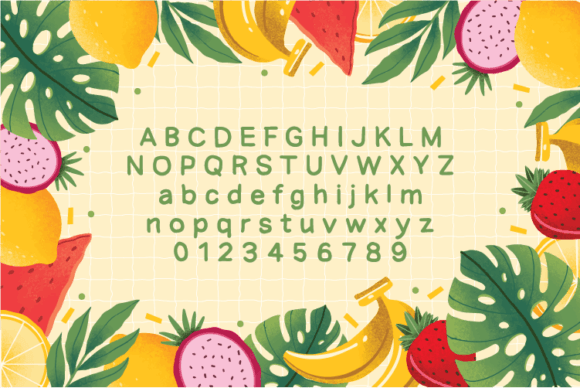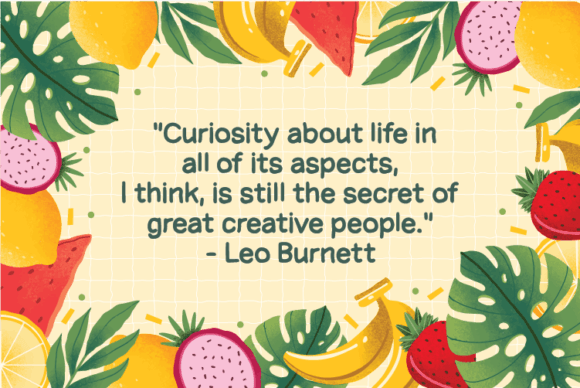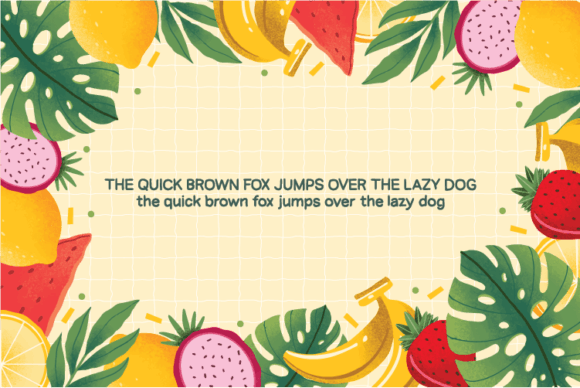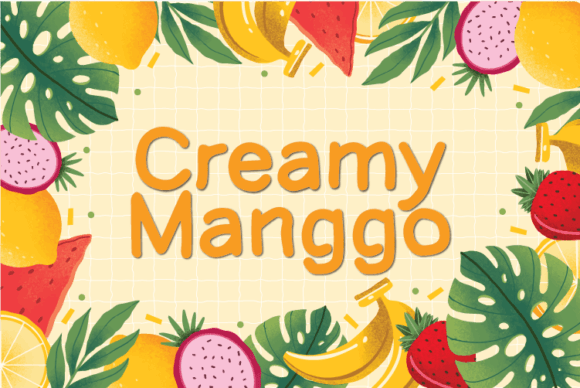
Creamy Manggo Font: A Unique and Natural Handwritten Style for Your Designs
In the world of typography, a good font can make all the difference in the success of a design project. For designers and crafters looking for a unique and natural handwritten style, Creamy Manggo Font is an excellent choice. This beautiful font is perfect for adding a personal touch to quotes, notes, tees, and any product design.
What Makes Creamy Manggo Font Special?
Creamy Manggo is a natural handwritten font that stands out from the rest due to its distinctive feature: not a single node in each character’s indentation has been changed. This means that the font retains a genuine, hand-written feel that is both interesting and unique. The result is a font that looks like it was written with a pen or pencil, giving it a warm and organic feel.
Creamy Manggo Font is versatile and can be used for a wide range of design projects. Here are some ideas to get you started:
- Quotes: Add a personal touch to inspirational quotes, making them perfect for social media posts, posters, or flyers.
- Notes: Use Creamy Manggo to create beautiful and unique notes for journals, planners, or greeting cards.
- Tees: Design eye-catching t-shirts with Creamy Manggo Font, perfect for casual wear or as a gift.
- Product Design: Add a handwritten touch to product labels, packaging, or branding materials to make them stand out.
Why Choose Creamy Manggo Font?
There are many reasons why Creamy Manggo Font is a great choice for designers and crafters:
- Unique Style: The font’s natural handwritten style and unaltered character indentation make it one-of-a-kind.
- Easy to Read: Despite its handwritten nature, Creamy Manggo Font is clear and easy to read, making it perfect for body text or headings.
- Versatile: Use Creamy Manggo Font for a wide range of design projects, from digital to print.
- Time-Saving: With Creamy Manggo Font, you can create beautiful designs quickly and efficiently, saving you time and effort.
Tips for Using Creamy Manggo Font
Here are some tips to help you get the most out of Creamy Manggo Font:
- Pair with Other Fonts: Combine Creamy Manggo Font with other fonts to create a unique and visually appealing design.
- Use for Headings and Body Text: Use Creamy Manggo Font for both headings and body text to create a cohesive look.
Creamy Manggo Font is a beautiful and unique handwritten font that is perfect for designers and crafters looking to add a personal touch to their designs. With its natural style, versatility, and ease of use, it’s an excellent choice for a wide range of design projects. Whether you’re creating quotes, notes, tees, or product designs, Creamy Manggo Font is sure to impress.